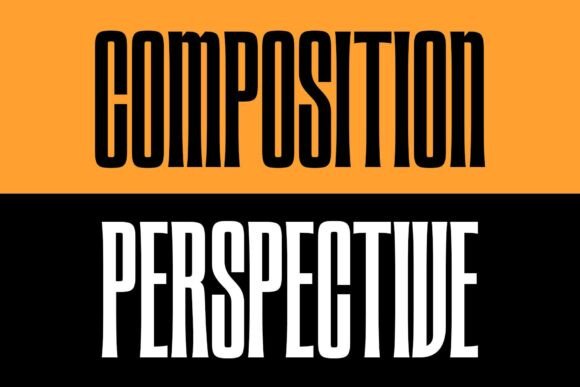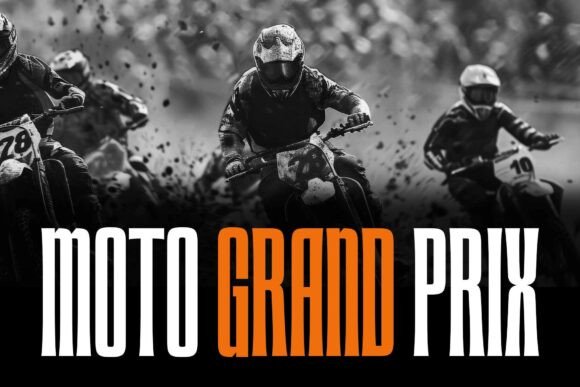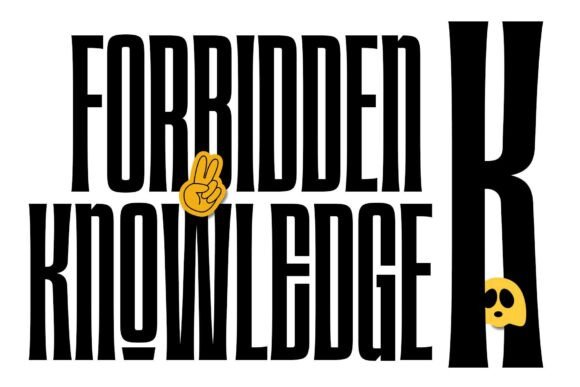
Introduction to Mondrich Font
You’re in the middle of a creative project, and the design is coming together perfectly – except for one crucial element: the font. You want something that’s bold, eye-catching, and perfectly balanced. That’s where the Mondrich Font comes in – an ultra-condensed sans-serif typeface that’s about to revolutionize your design.
Imagine a font that’s not just visually stunning, but also functional and versatile. The Mondrich Font is that and more. With its tall proportions, bold weight, and widened stroke tips, it adds a classy and stylish touch to any design, whether it’s vintage, sports, futuristic, or modern.
As a valuable resource for designers, the Mondrich Font is a high-quality solution for space-conscious designs that refuse to sacrifice power. It’s perfect for cinematic movie posters, technical branding, or high-end sports apparel, and its clean lines and sharp verticality project a sense of forward-moving engineering and architectural precision.
Key Features of Mondrich Font
- Designed to be highly legible, with clear and crisp typography that is easy to read on both digital and print media.
Honest Review: Mondrich Font
As a designer, I’m always on the lookout for high-quality design resources that can elevate my creative projects. Recently, I came across the Mondrich Font, and I’m excited to share my honest review with you.
What works well: ✨ The Mondrich Font is a beautiful, modern sans-serif font that’s perfect for a variety of design projects. Its clean lines and elegant feel make it a great choice for anything from logos to digital products. I also appreciate the transparent background, which makes it easy to customize and pair with other design elements.
- High-quality design: The font is well-designed and looks great at various font sizes and resolutions.
Any limitations: ⚠️ One thing to note is that the font may not be as versatile as some other popular fonts, and it may not be suitable for all design projects. Additionally, some users may find the font to be a bit too minimalist for their taste.
Overall impression: I’m really impressed with the Mondrich Font, and I think it’s a great addition to any designer’s toolkit. Its high-quality design and transparent background make it a great choice for a variety of creative projects. If you’re looking for a modern sans-serif font, I’d definitely recommend giving the Mondrich Font a try.
Common Use Cases for Mondrich Font
Mondrich Font is ideal for various design projects, including brochures, posters, and social media graphics. Its versatility and high quality make it a valuable resource for designers and non-designers alike.